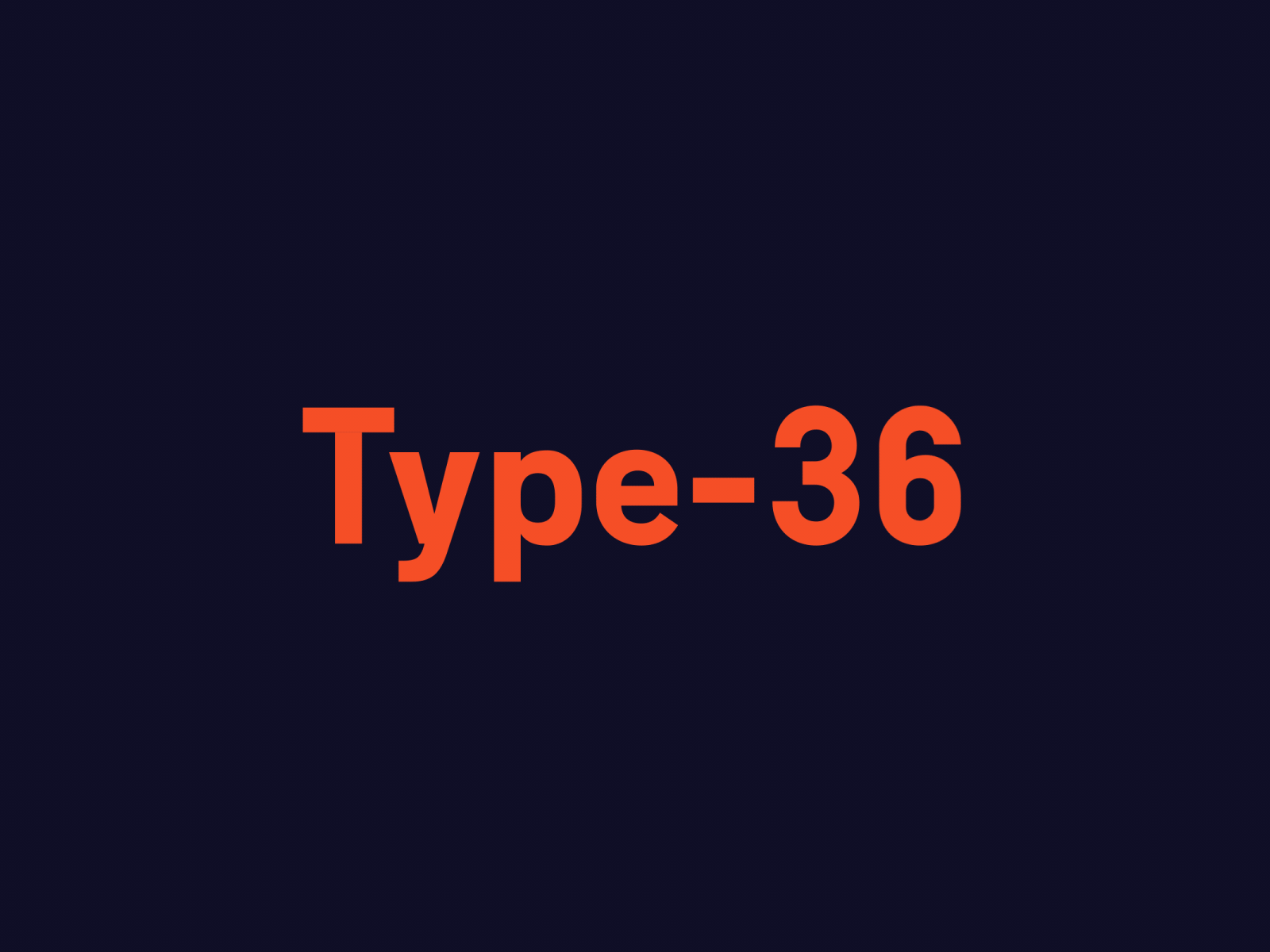
Bring your designs to life with the A B See Animated Typeface. Download this creative motion font, perfect for dynamic kinetic typography and video projects.